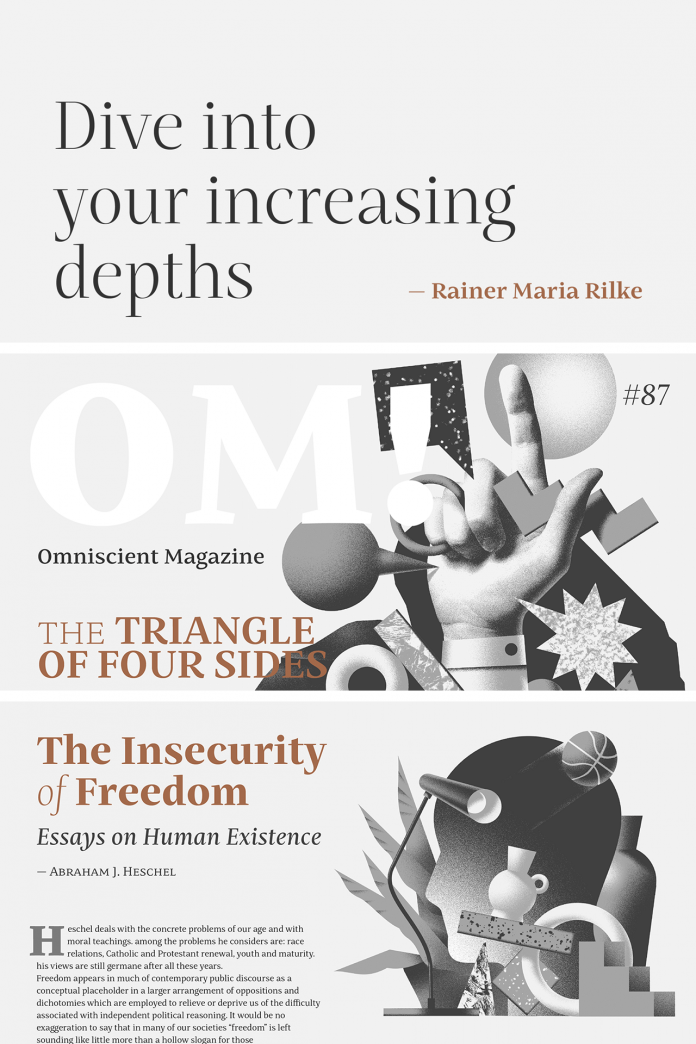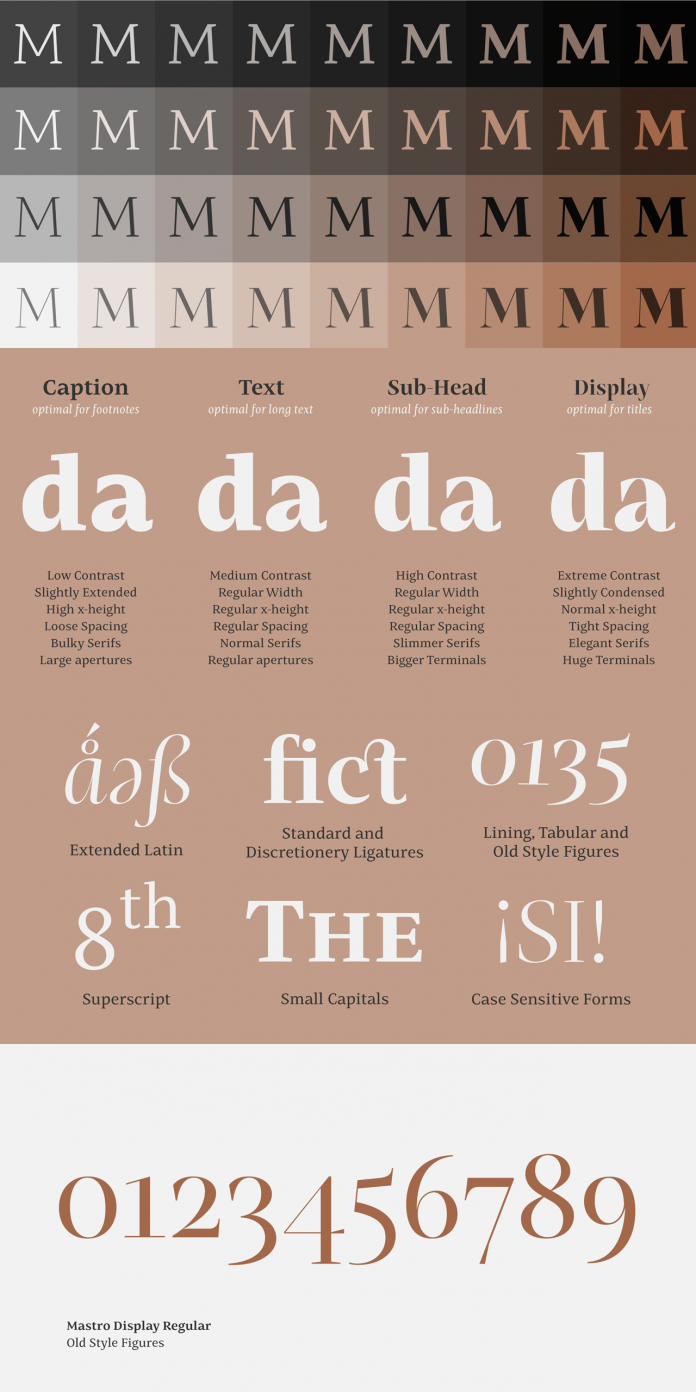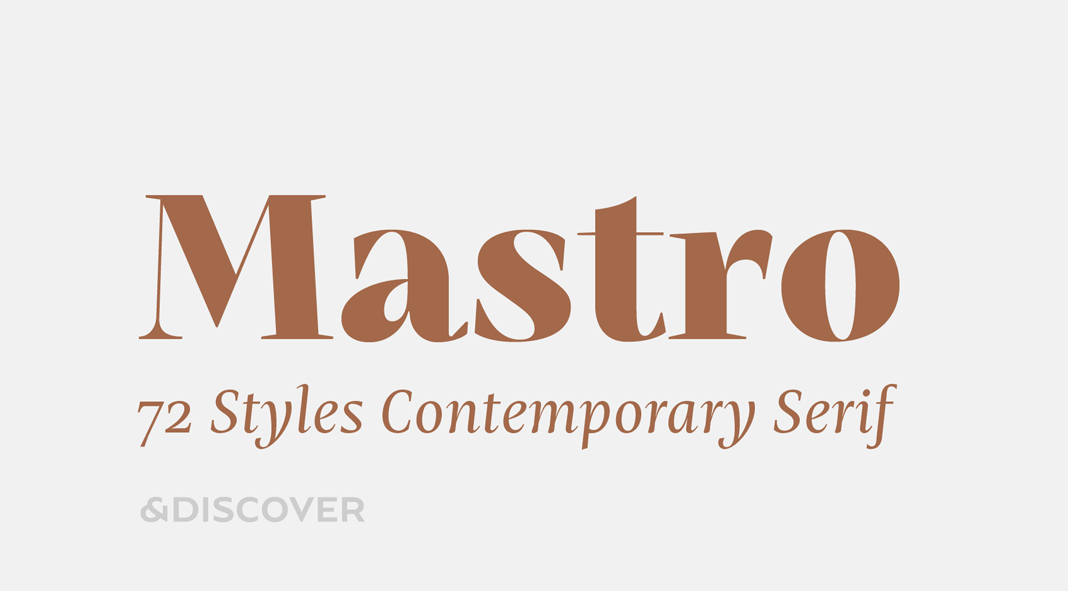
Mastro, a classic serif font family published by type foundry Ndiscover in 2020.
Consisting of 72 styles, Mastro is a contemporary sans serif font family that comes with 9 weights and 4 optical sizes: Caption, Text, Sub-head, and Display. This super versatile font family is well suited for a wide range of typographic work including editorial, graphic design, branding, and web design. Despite its unusual shapes, it offers a rigorous professional look that stands out and works efficiently. The caption styles are meant for use in very small texts like footnotes while Mastro’s text styles are ideal for long text sections. As the name suggests, the subhead styles are meant for sub-headlines and the display styles are the right choice for large typesetting. The family comes with many OpenType features including Small Caps, Standard and Discretionary Ligatures, Superscript Letters, Case Sensitive Forms, Lining Figures, Old Style Figures, Tabular and Proportional Numbers, etc. The family also works great with its counterpart called Mastro Sans. To learn more, just click on one of the following links.